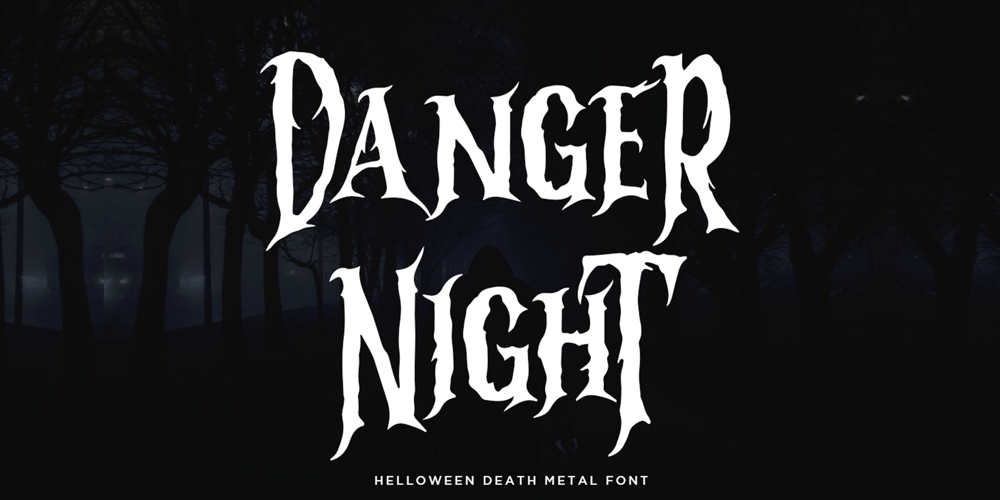
DangeR NighT Font Family was designed by Edhi Prayitno and published by Absonstype. DangeR NighT contains 1 styles and family package options. DANGER NIGH is the horror display typeface with high contrast all caps style looks and feel nice balanced.Honestly it works perfectly for headlines, logos, posters, packaging, T-shirts and much more.Recommended to use in Adobe Illustrator or Adobe Photoshop with opentype feature.Ligatures feature is default setting in Adobe Illustrator or Adobe Photoshop in Uppercase character. So when you want not to use the ligatures.Open glyphs panel : In Adobe Photoshop choose tool Window >> Character and then please click fi symbol In Adobe Illustrator choose tool Window >> Type >> Open Type and then please click fi symbol If you have questions, just send me a message and I’m glad to help.Have a great day,Absonstype